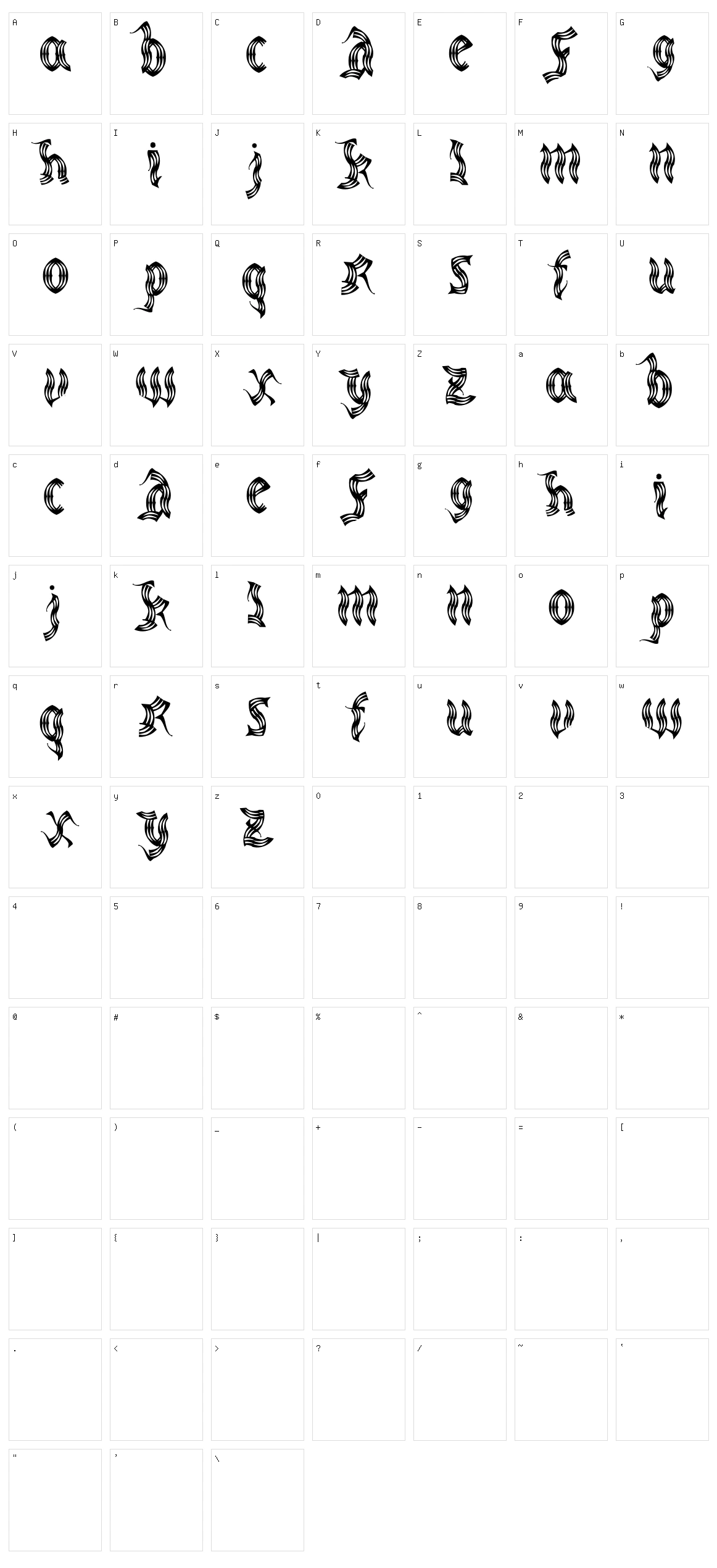
The free font Medieval Party is carefully designed by Yissus Letters & Drawings, showcasing a thoughtful balance of creativity and usability and belongs to the Gothic font family. When you download the ZIP file, it contains only 39.99 KB of font files, making it lightweight and quick to download. Please review the license details below to understand permitted usage and distribution rights. If license information is not available, we recommend using this font for personal projects only or contacting the author directly for commercial usage permissions.